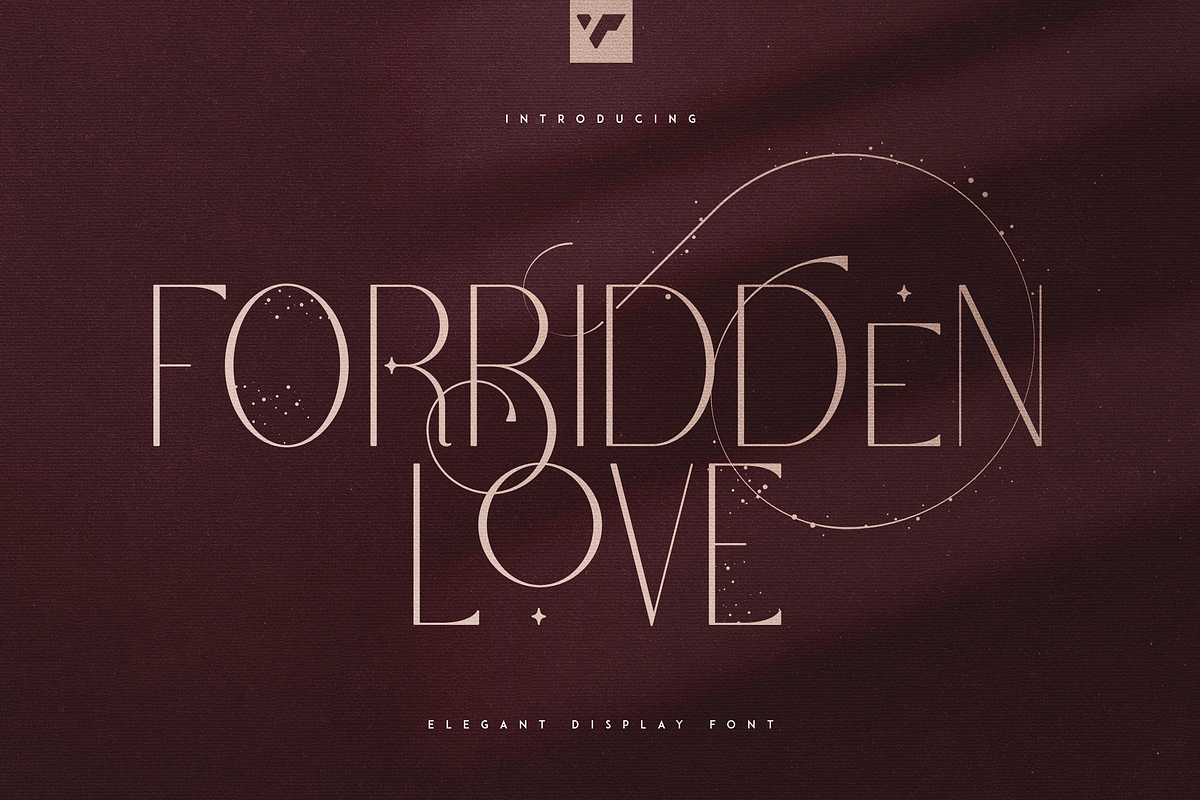
Forbidden Love - Display Font Free Download
Forbidden Love – Display Font Free Download is a bold and romantic typeface that blends drama and elegance, perfect for emotional storytelling and eye-catching design. Please note, you are required to purchase this font for commercial use. It is available for free download for testing and personal projects only.
With its dramatic curves, stylish serifs, and cinematic flair, Forbidden Love is ideal for book covers, movie titles, posters, branding, and Valentine’s-themed graphics. It brings passion and intensity to every word, making your message feel powerful and unforgettable.